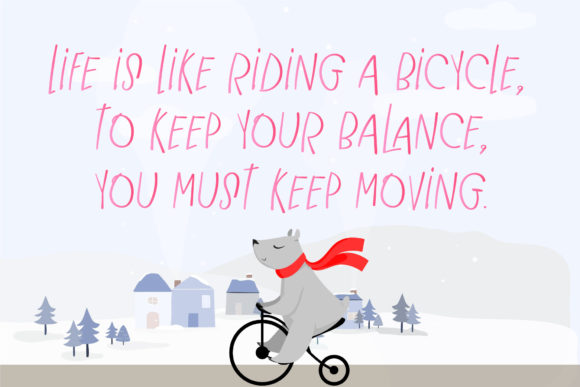
Winter Wonderland Font
Winter Wonderland is a cute and simple lettered handwritten font that can be used for all chalkboard quotes or teaching material! Its authentic look will add a personal and realistic feel to your designs.